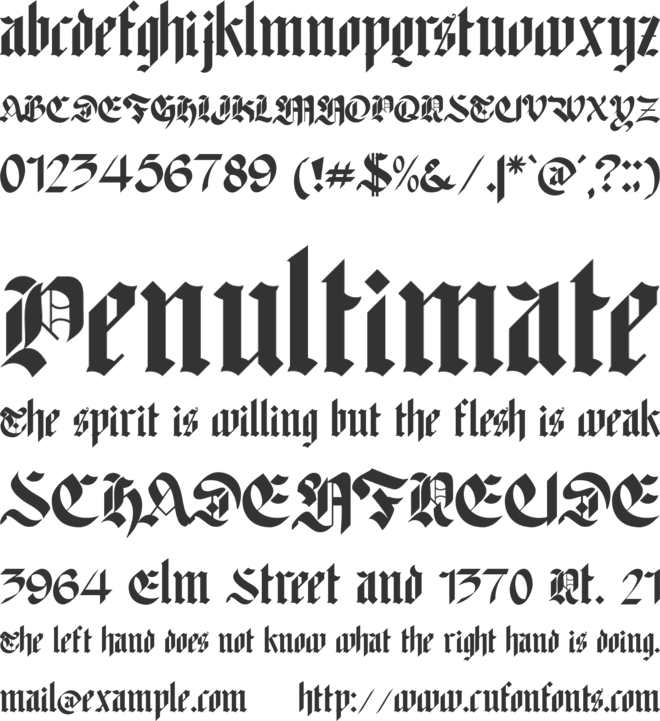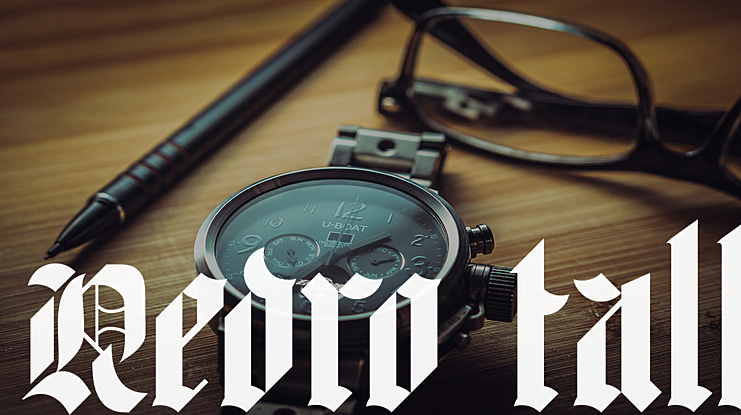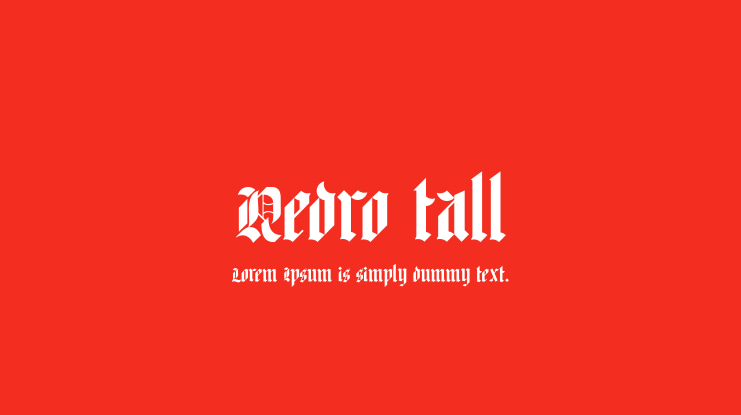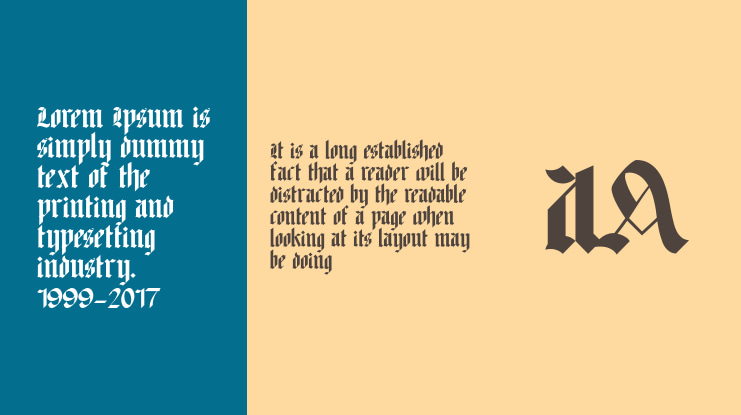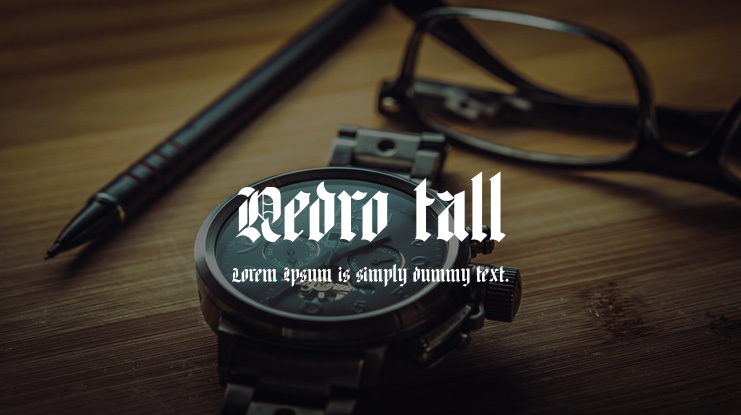
Redro tall Font Family
introducing Redro, modern geometric gothic font. free for persenal use. for comercial purposes please email me or go to https://www.creativefabrica.com/designer/ogit/ref/140057/